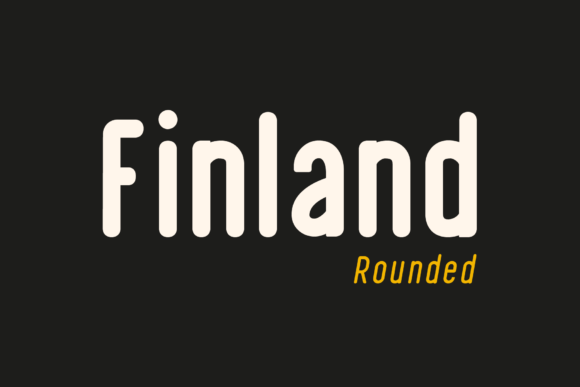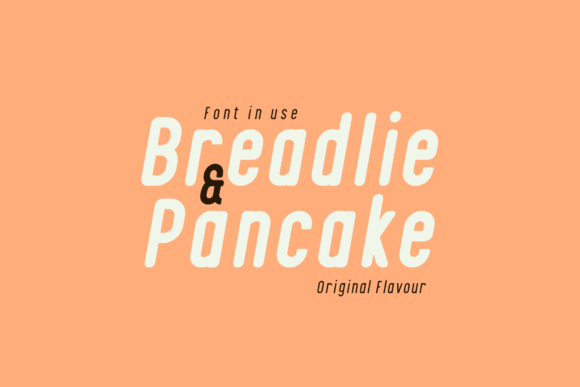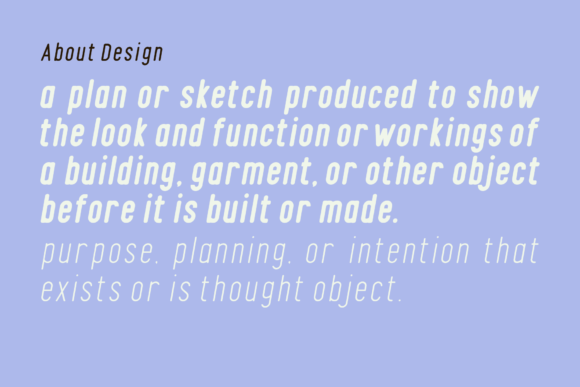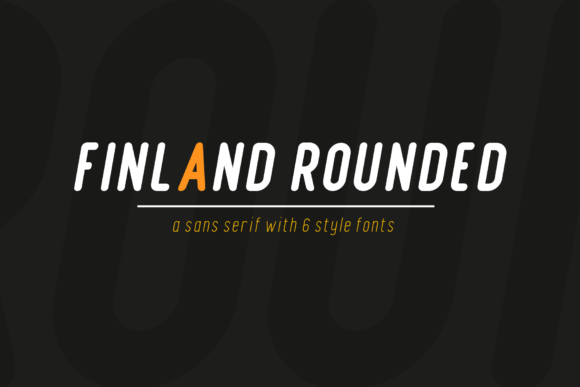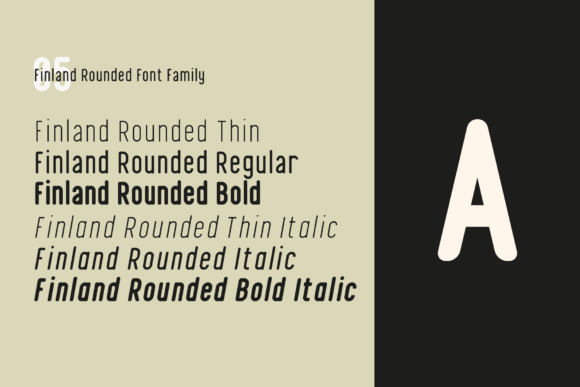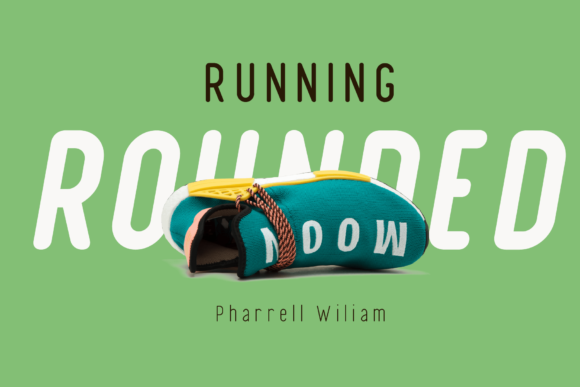
Introduction to Finland Rounded Font Font
Fonts play a crucial role in design, and the Finland Rounded Font font is a typeface that brings both character and versatility to any project. Whether you’re working on a branding project, a website, or a print design, the Finland Rounded Font font offers a unique style that can elevate your work.
The Finland Rounded font family has been crafted from scratch and features a unique structural logic: a fusion of pure geometry and optical balance.
The Finland Rounded family comes with 6 unique styles: Regular, Italic, Thin, Thin Italic, Bold & Bold Italic When combining these styles, you have a complete toolkit that allows you to create fun, professional designs such as logos, greeting cards, posters, branding and more.
Key Features of Finland Rounded Font Font
Why Choose Finland Rounded Font Font?
The Finland Rounded Font font is more than just a typeface – it’s a design tool that helps you communicate your message with style and clarity. Its unique character set and versatile design make it suitable for a wide range of applications, from elegant invitations to bold headlines.
With its carefully crafted letterforms and balanced proportions, the Finland Rounded Font font ensures readability and visual appeal across all mediums.
What makes Finland Rounded Font font special?
The Finland Rounded Font font stands out with its unique design, exceptional readability, and versatility across various design applications.